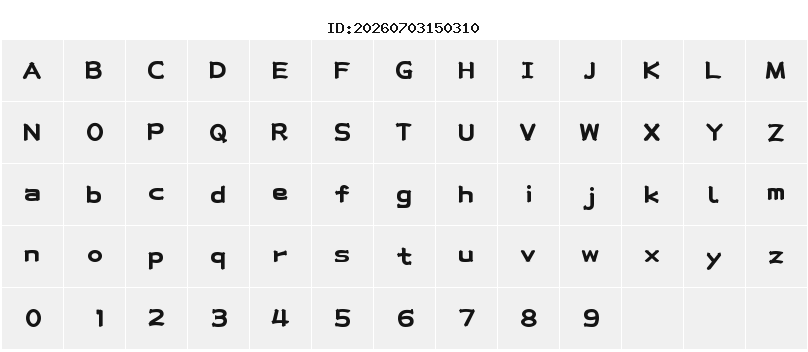
261-上首惊云体 Preview
About 261-上首惊云体.ttf
261-上首惊云体.ttf is a modern, elegant sans-serif font designed for ultimate readability and visual harmony. Perfect for branding, headlines, web design, and print materials.